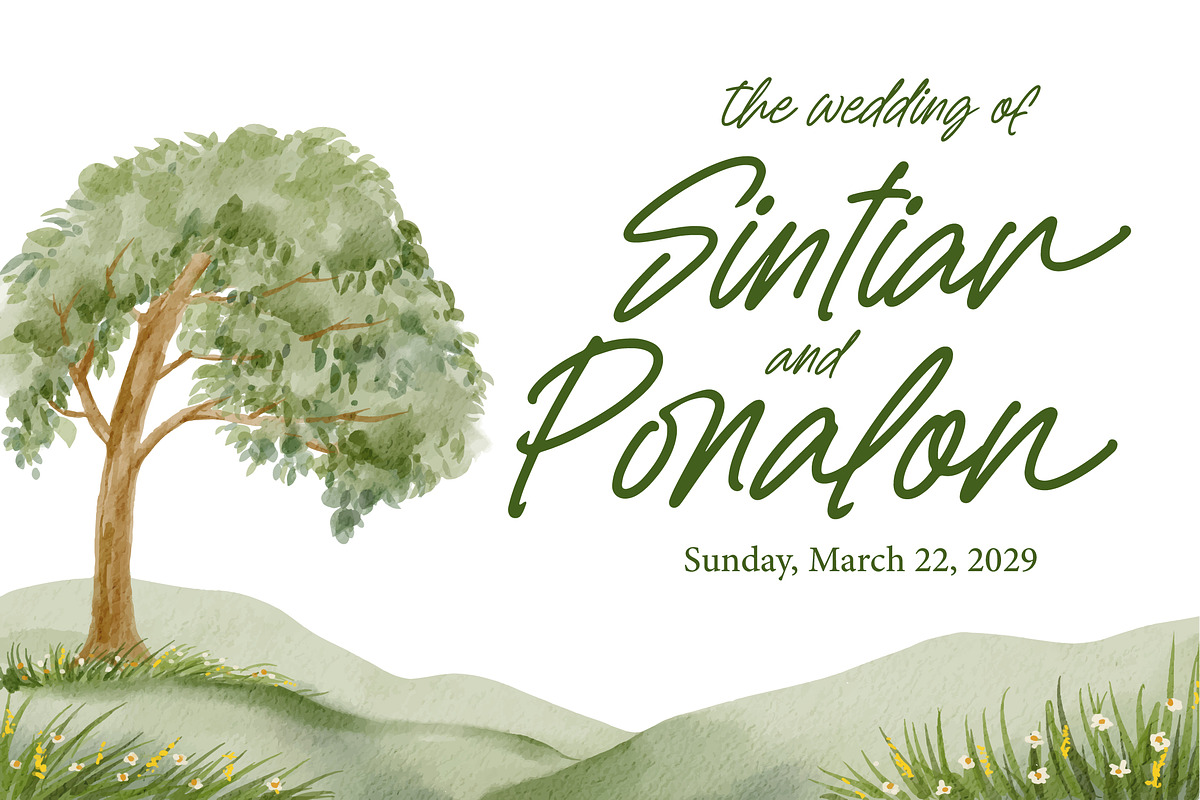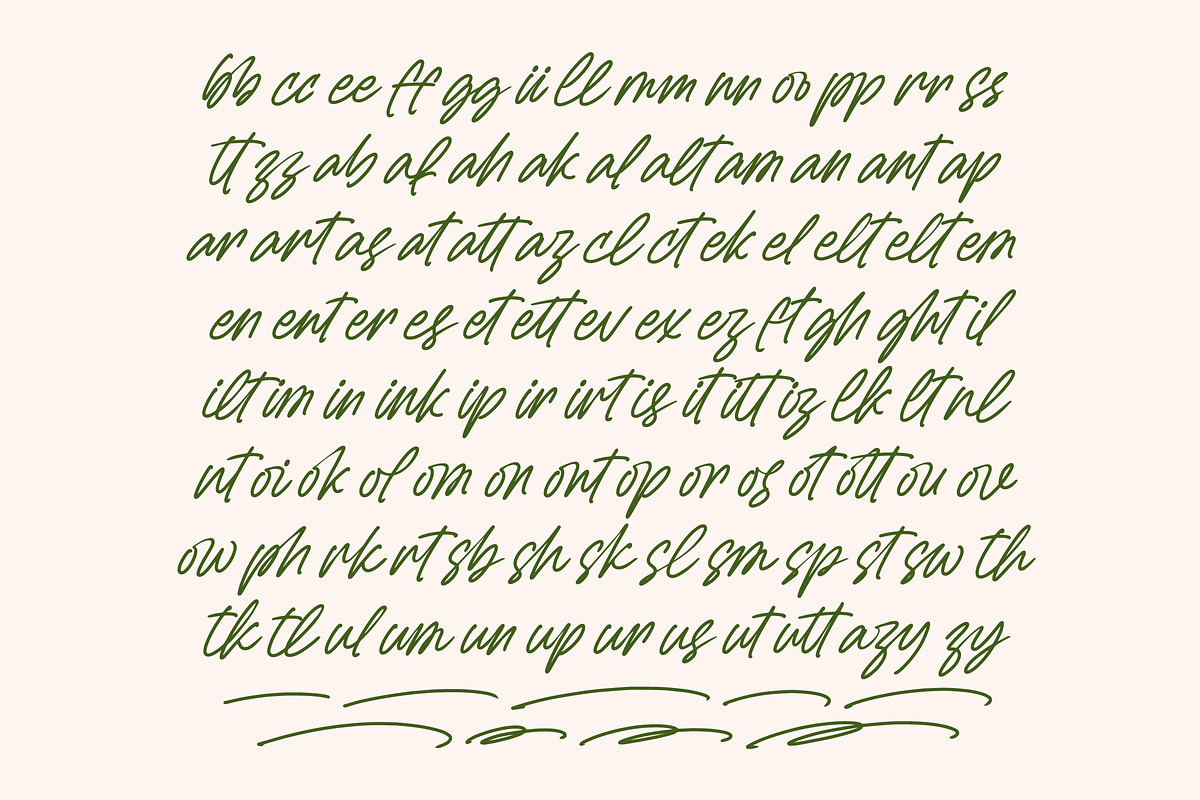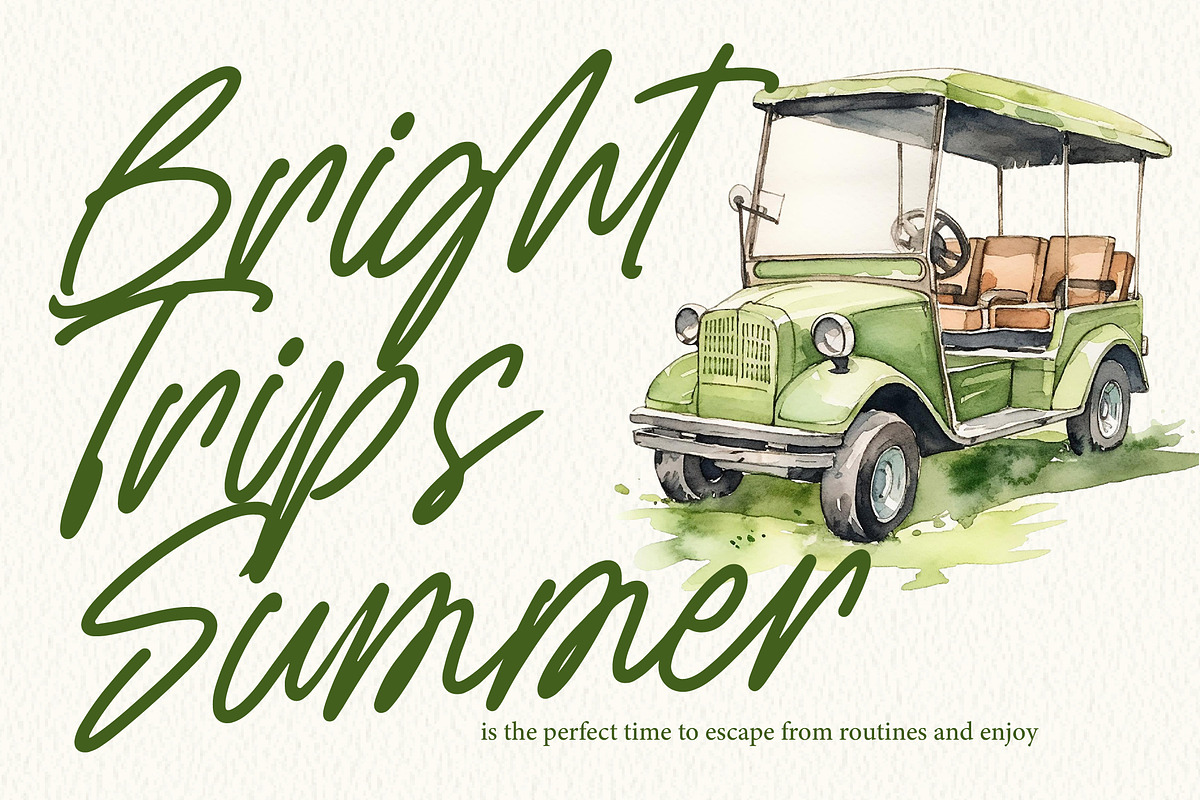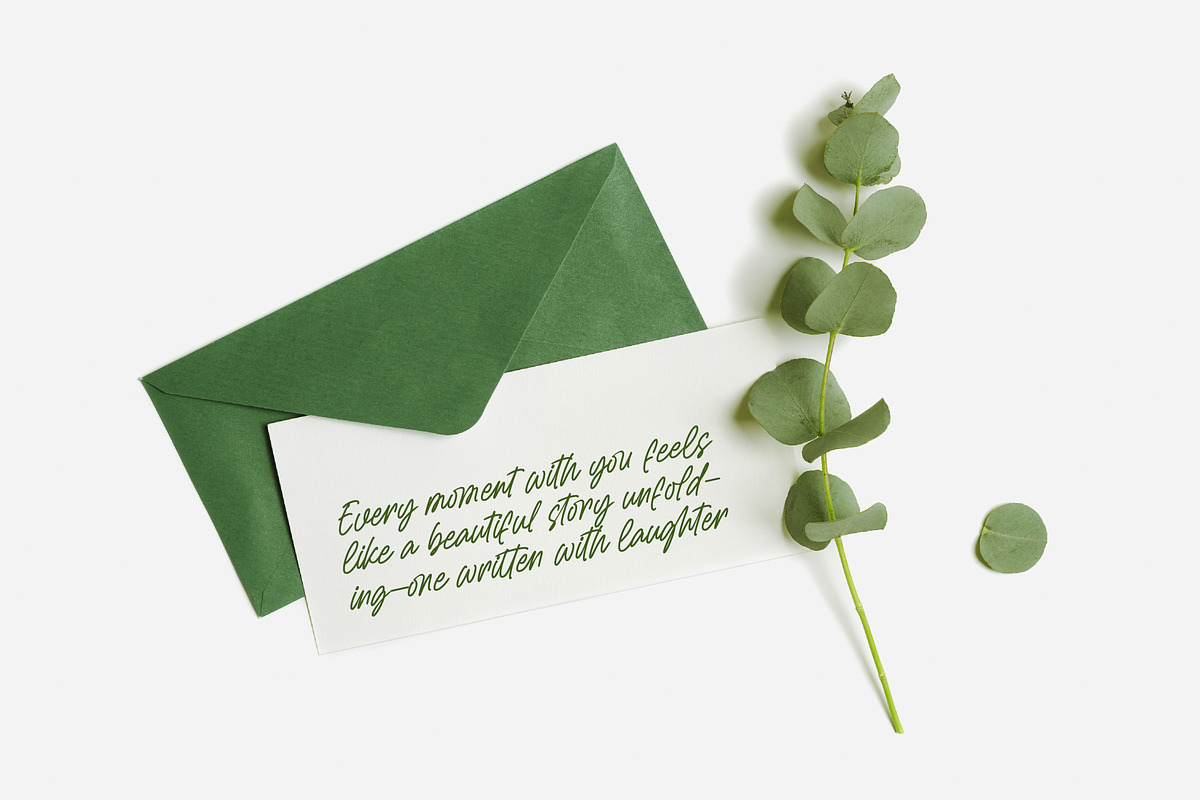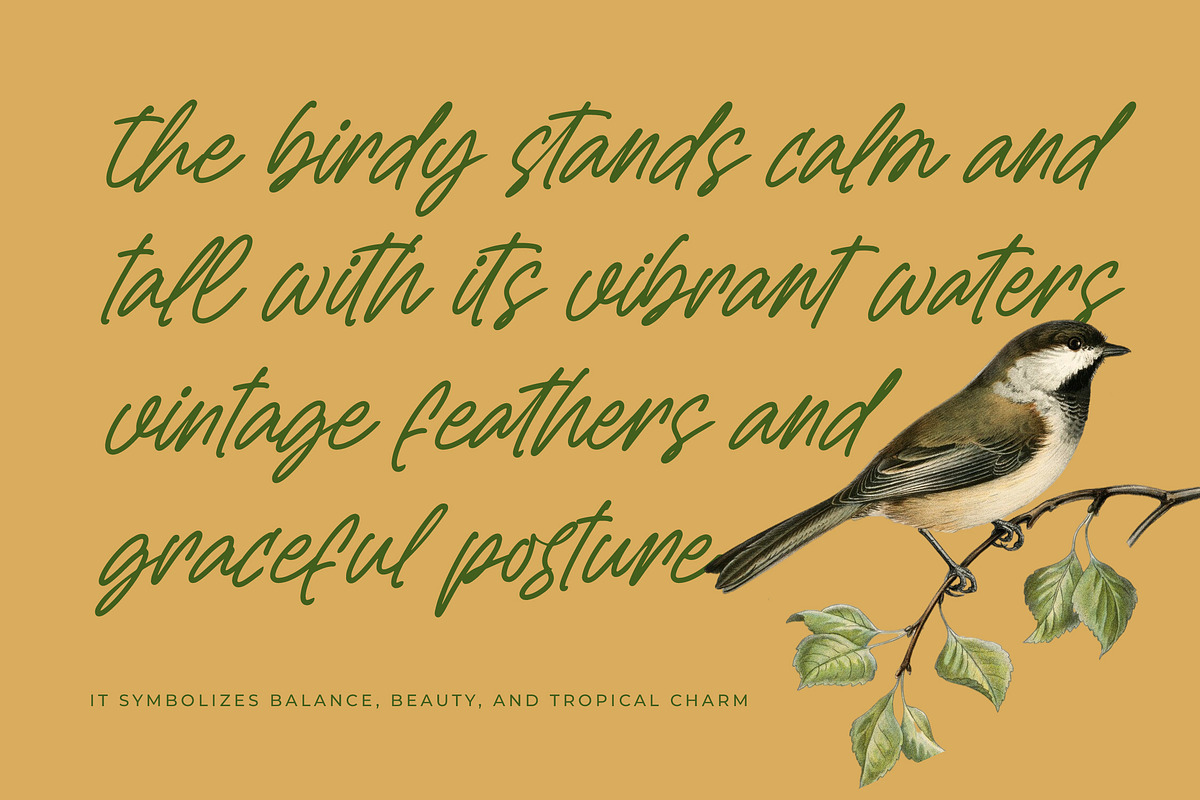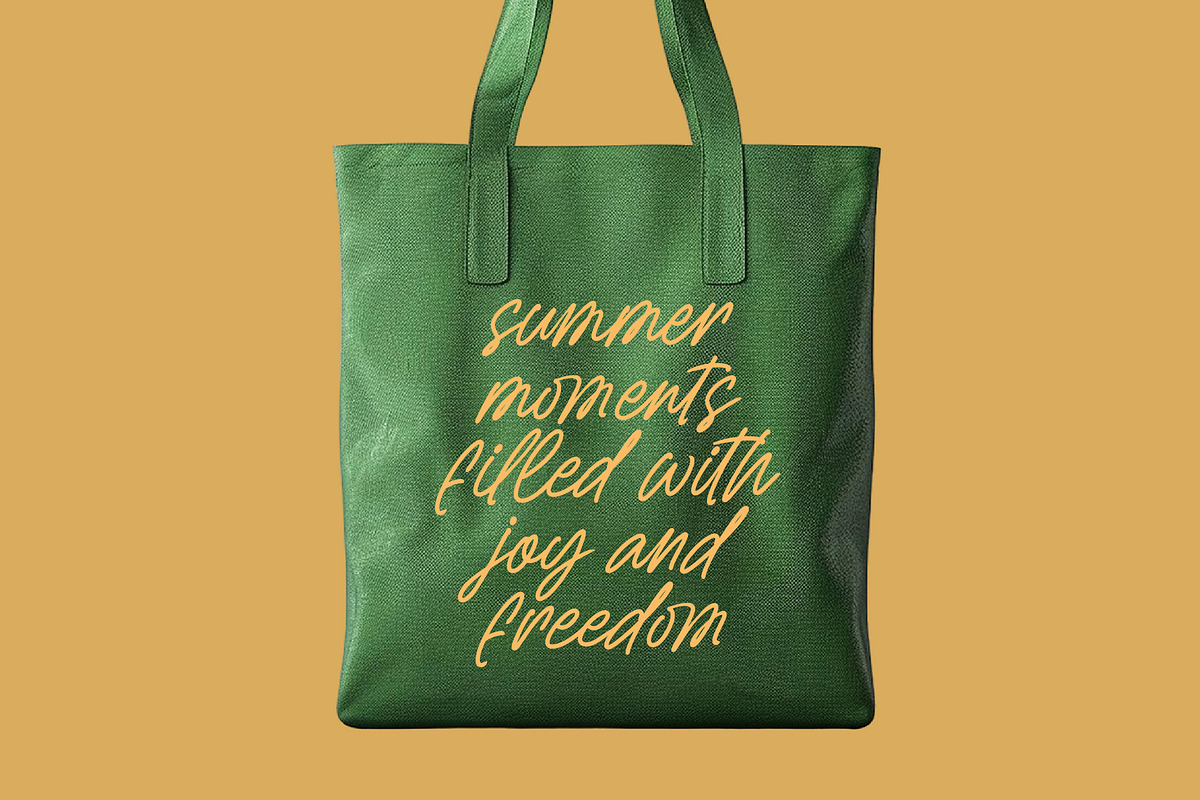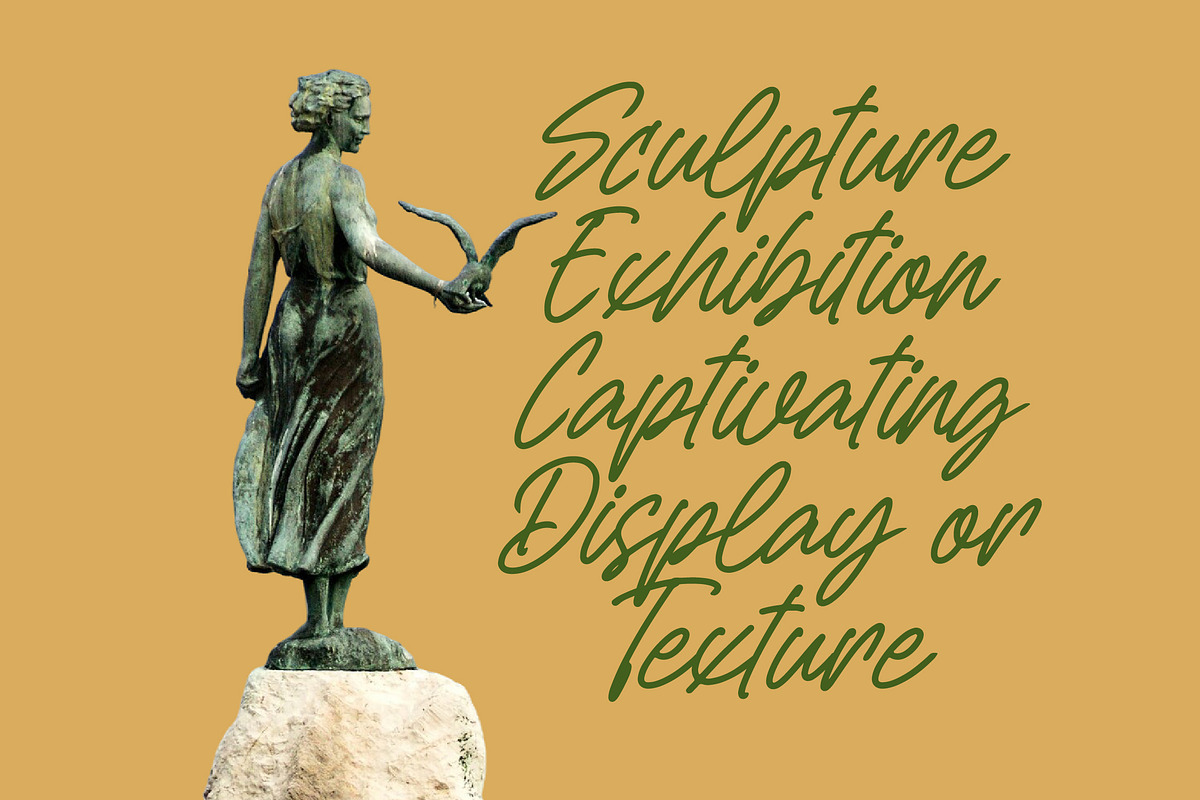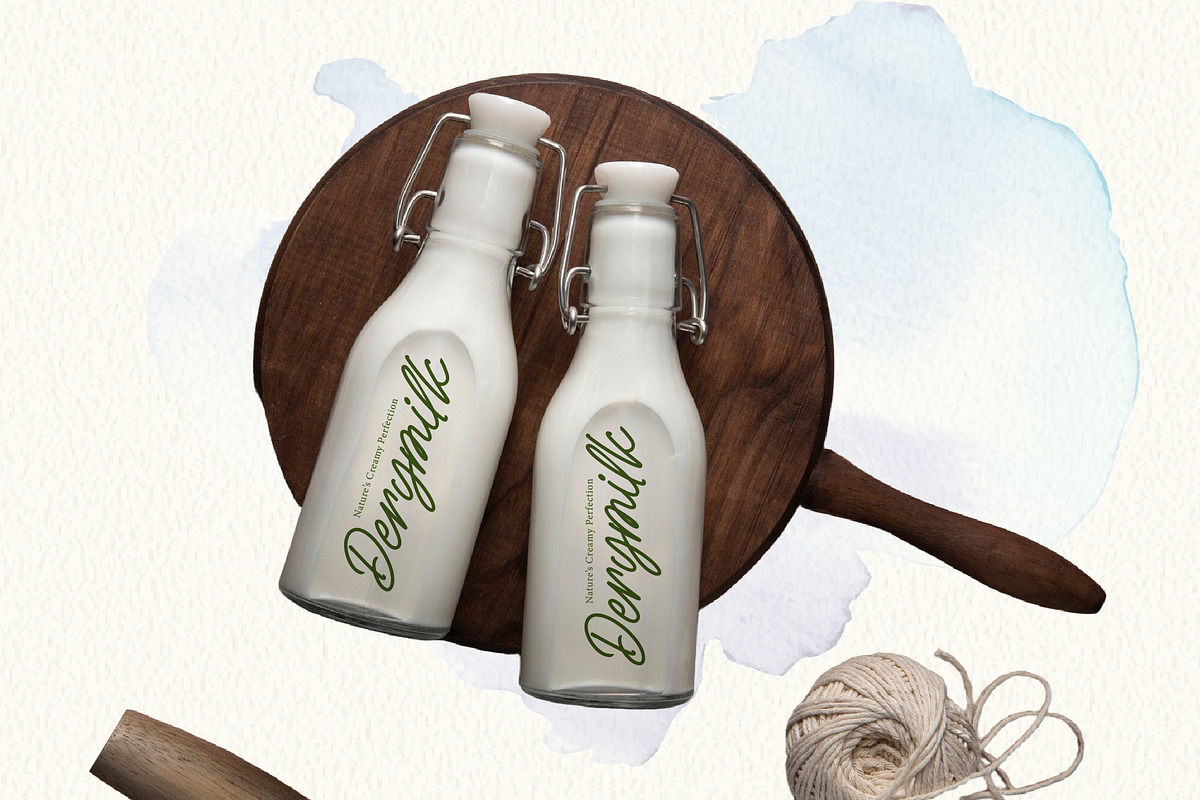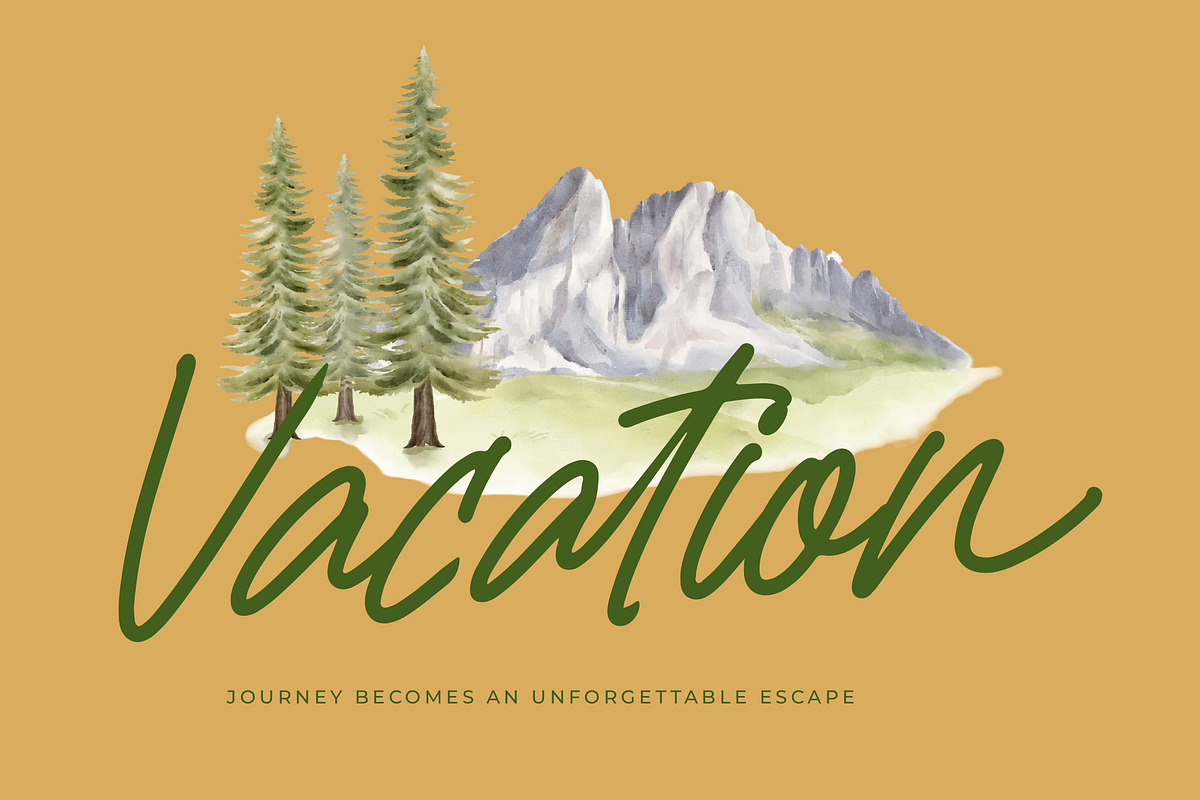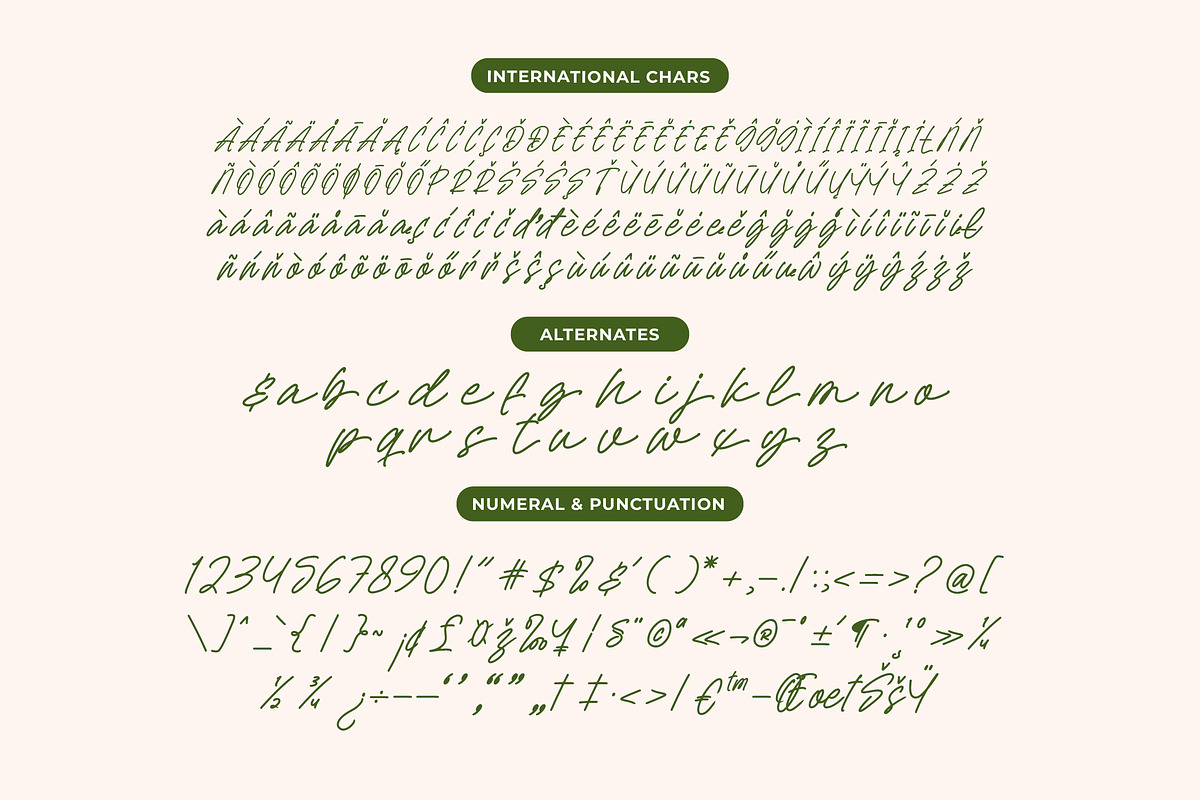
Sejatty Gartena Aesthetic Font
Sejatty Gartena - Aesthetic Handwritten Font , from Letterena, is a Luxury Script font, suitable for any projects such as: logos, branding projects, homeware designs, product packaging, mugs, quotes, posters, shopping bags, t-shirts, book covers, name card, invitation cards, greeting cards, label, photography, watermark, special events, and all your other luxury and beautiful projects that need a Luxury Script taste.
- 76 Ligature 26 Alternate & 8 Swashes